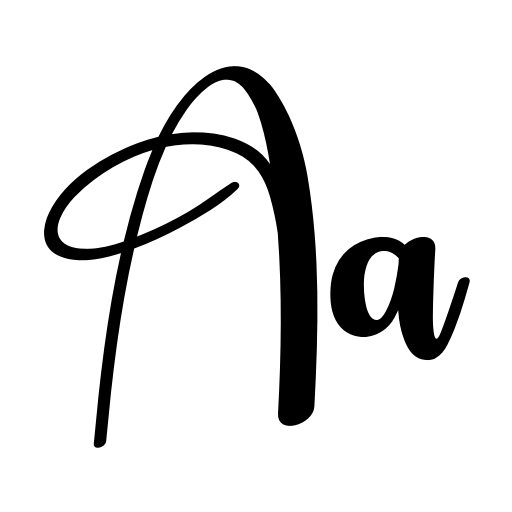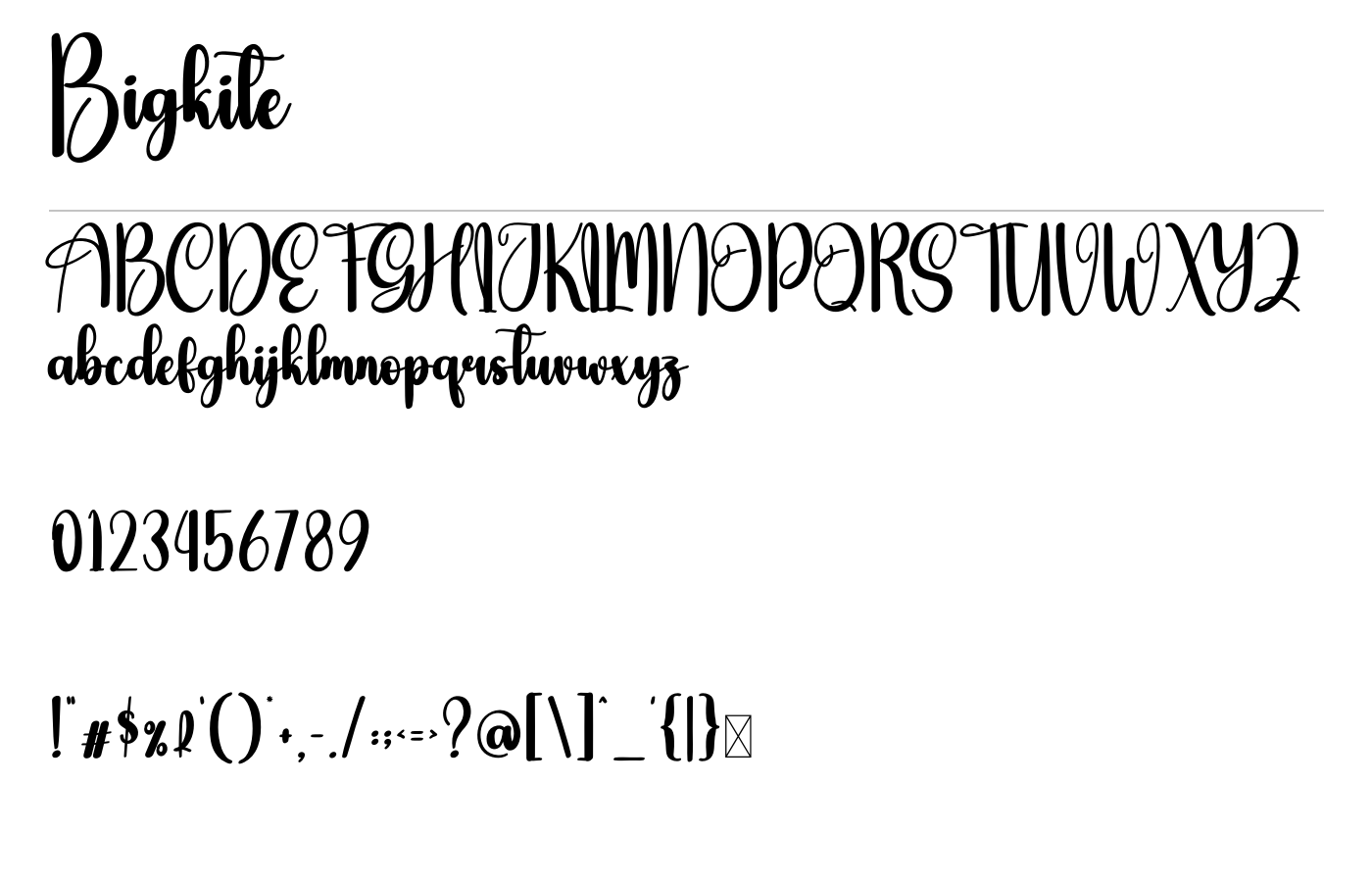
Bigkite is a playful and elegant script font with flowing, hand-drawn letterforms that combine smooth curves and whimsical swirls, especially in the uppercase letters. It features a medium weight with moderate contrast, single-story characters, and a casual yet refined style, making it perfect for creative projects, invitations, branding, and packaging that seek a friendly yet stylish look. Its distinctive charm adds personality to headlines, logos, and decorative text where a lively, artistic touch is desired.
Bigkite Font
About Bigkite Font